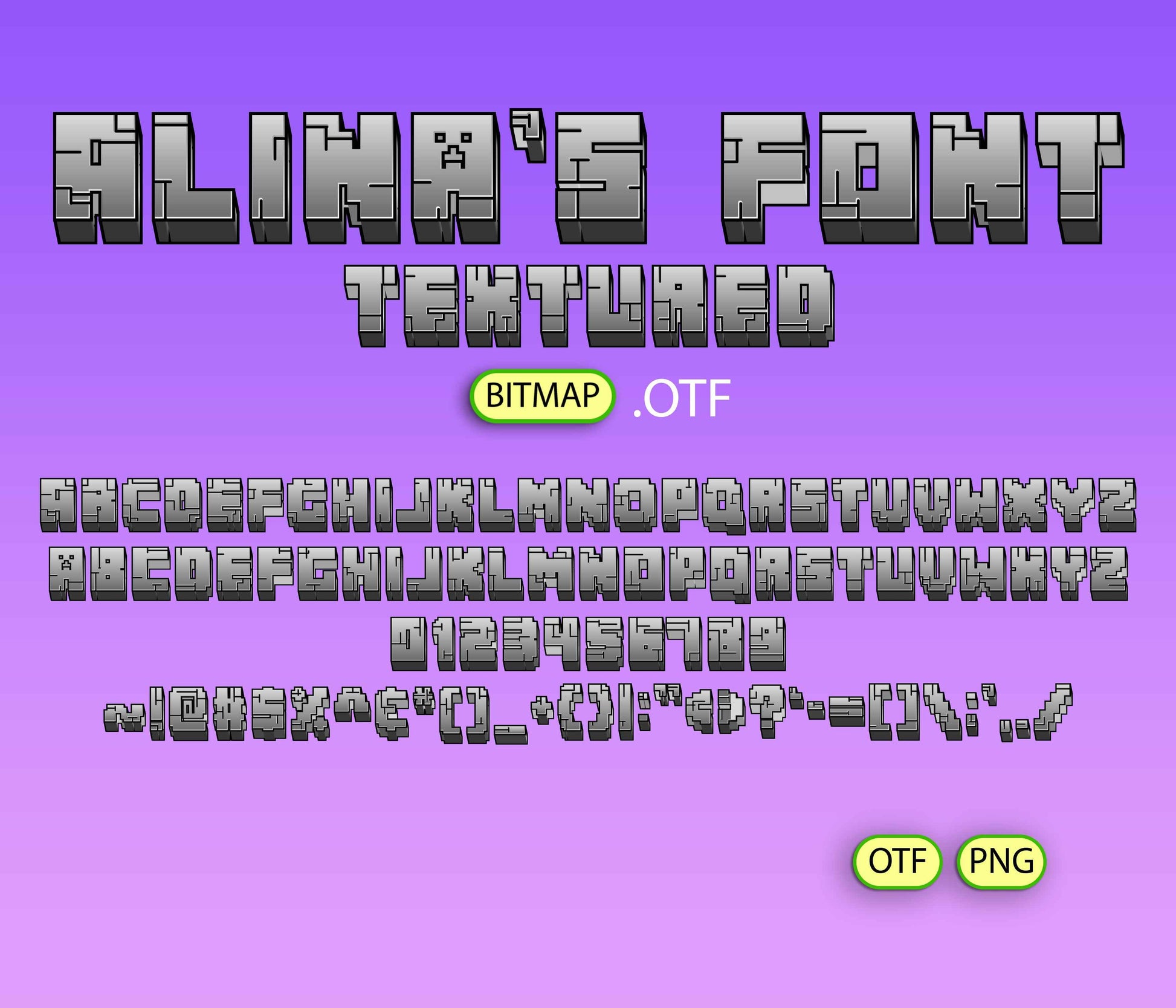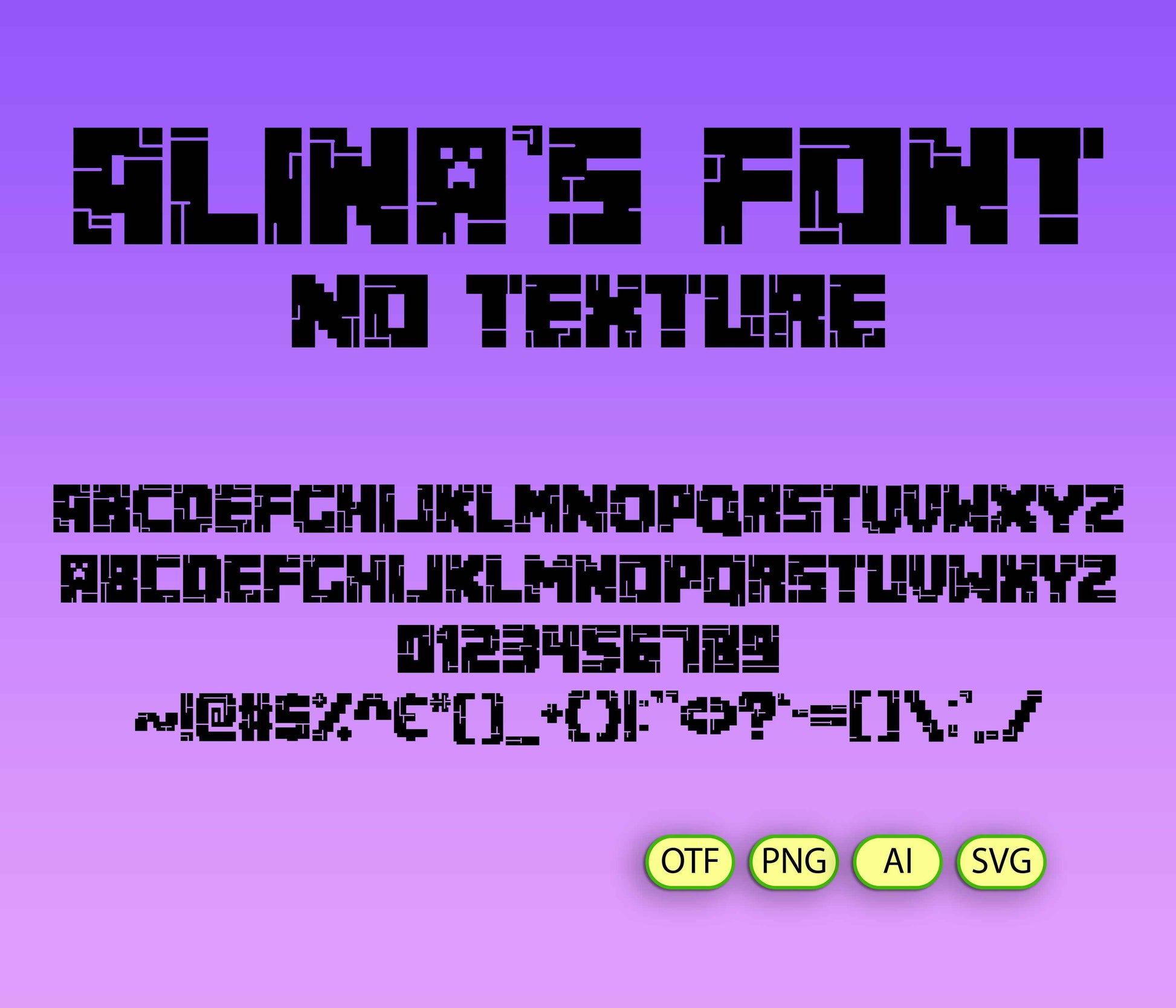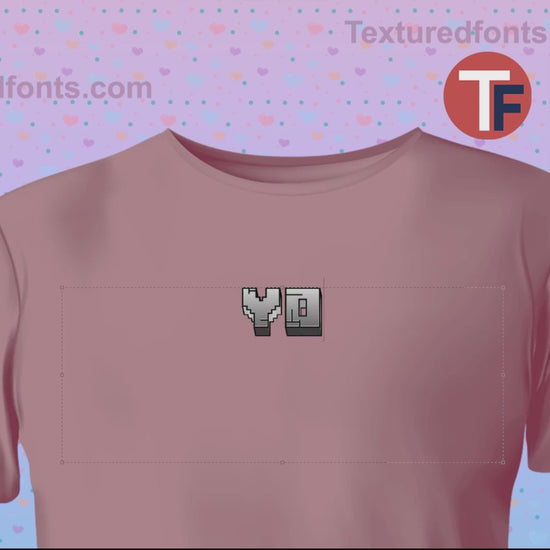
PixelCraft Font Textured
Build Your Creative World with the PixelCraft Font
Immerse yourself in the pixelated, block-based universe of PixelCraft with our PixelCraft-inspired font, designed to evoke the iconic, minimalist aesthetic of this globally beloved sandbox game. Perfect for gamers, content creators, and educational professionals, this font brings the distinctively digital and creative spirit of PixelCraft to your projects.
This PixelCraft-inspired font features square, block-like characters that mimic the game's fundamental graphic elements. Its clean, grid-based style is ideal for various applications:
Our PixelCraft font not only celebrates the imaginative and constructive essence of the game but also allows you to infuse your designs with its engaging, playful qualities. Whether you're developing educational content, designing promotional materials, or personalizing your digital landscape, this font helps you communicate with the same spirit of creativity and adventure that defines PixelCraft. Ready to start building your next project? Let this font transform your creative ideas into reality, block by block.